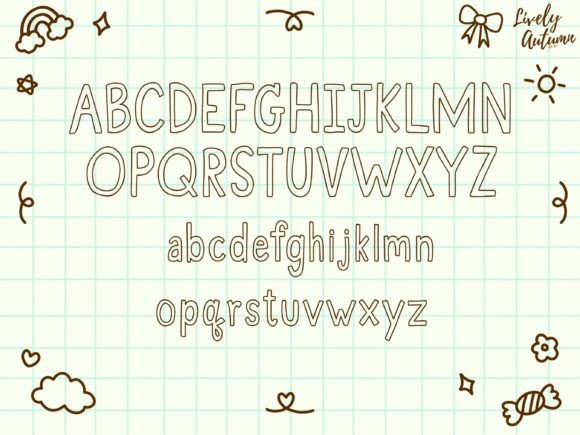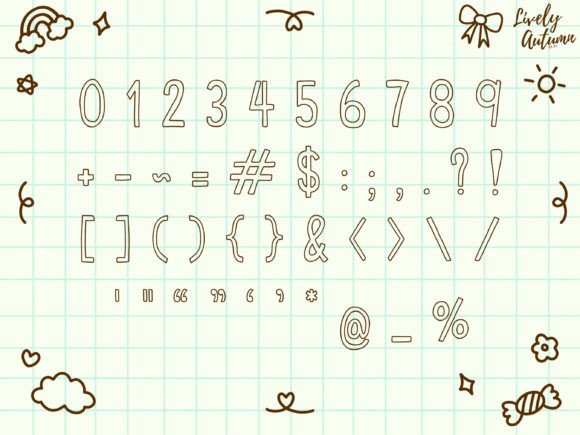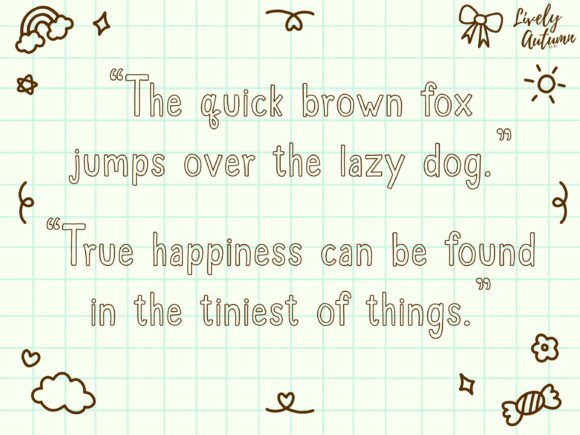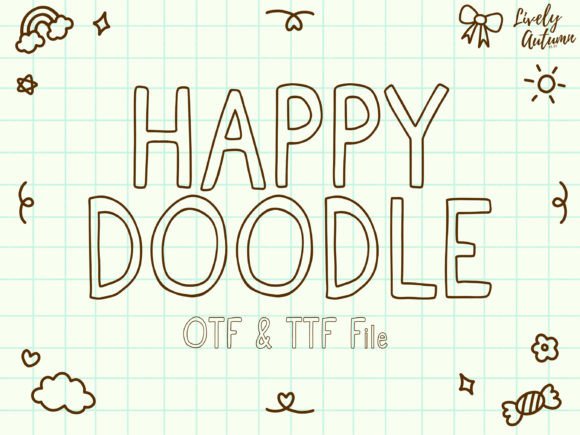
Introducing Happy Doodle Font: The Perfect Addition to Your Design Arsenal
Are you a designer, crafter, or DIY enthusiast looking for a font that can add a touch of personality to your projects? Look no further than Happy Doodle Font, an outline sans serif handwritten font that’s perfect for a wide range of applications. In this article, we’ll explore the features and benefits of Happy Doodle Font, and show you how it can elevate your designs to the next level.
What is Happy Doodle Font?
Happy Doodle Font is a unique and versatile font that’s designed to bring a smile to your face. As an outline sans serif handwritten font, it offers a clean and modern look that’s perfect for a variety of projects. Whether you’re creating invitations, posters, social media graphics, journals, or any other type of design, Happy Doodle Font is the perfect choice.
Key Features of Happy Doodle Font
- Outline Sans Serif Design: Happy Doodle Font features a clean and modern outline sans serif design that’s perfect for creating visually appealing designs.
- Handwritten Style: Despite its clean and modern look, Happy Doodle Font still retains a handwritten feel that’s perfect for adding a personal touch to your designs.
- Versatile: Happy Doodle Font is perfect for a wide range of projects, from invitations and posters to social media graphics and journals.
- Easily Readable: The font is designed to be easily readable, making it perfect for designs that require a clear and concise message.
Benefits of Using Happy Doodle Font
So why should you choose Happy Doodle Font for your next project? Here are just a few benefits of using this amazing font:
- Adds Personality to Your Designs: Happy Doodle Font is the perfect way to add a touch of personality to your designs. Its unique and playful style is sure to make your designs stand out from the crowd.
- Perfect for DIY Projects: If you’re a crafter or DIY enthusiast, Happy Doodle Font is the perfect choice for your projects. It’s perfect for creating handmade cards, invitations, and other DIY projects.
- Great for Social Media Graphics: Happy Doodle Font is also perfect for creating social media graphics. Its clean and modern design makes it perfect for creating eye-catching graphics that will grab the attention of your followers.
| Font Name | Happy Doodle Font |
| Author | LivelyAutumn 11.11 |
- Is Happy Doodle Font easy to read?: Yes, Happy Doodle Font is designed to be easily readable. Its clean and modern design makes it perfect for designs that require a clear and concise message.